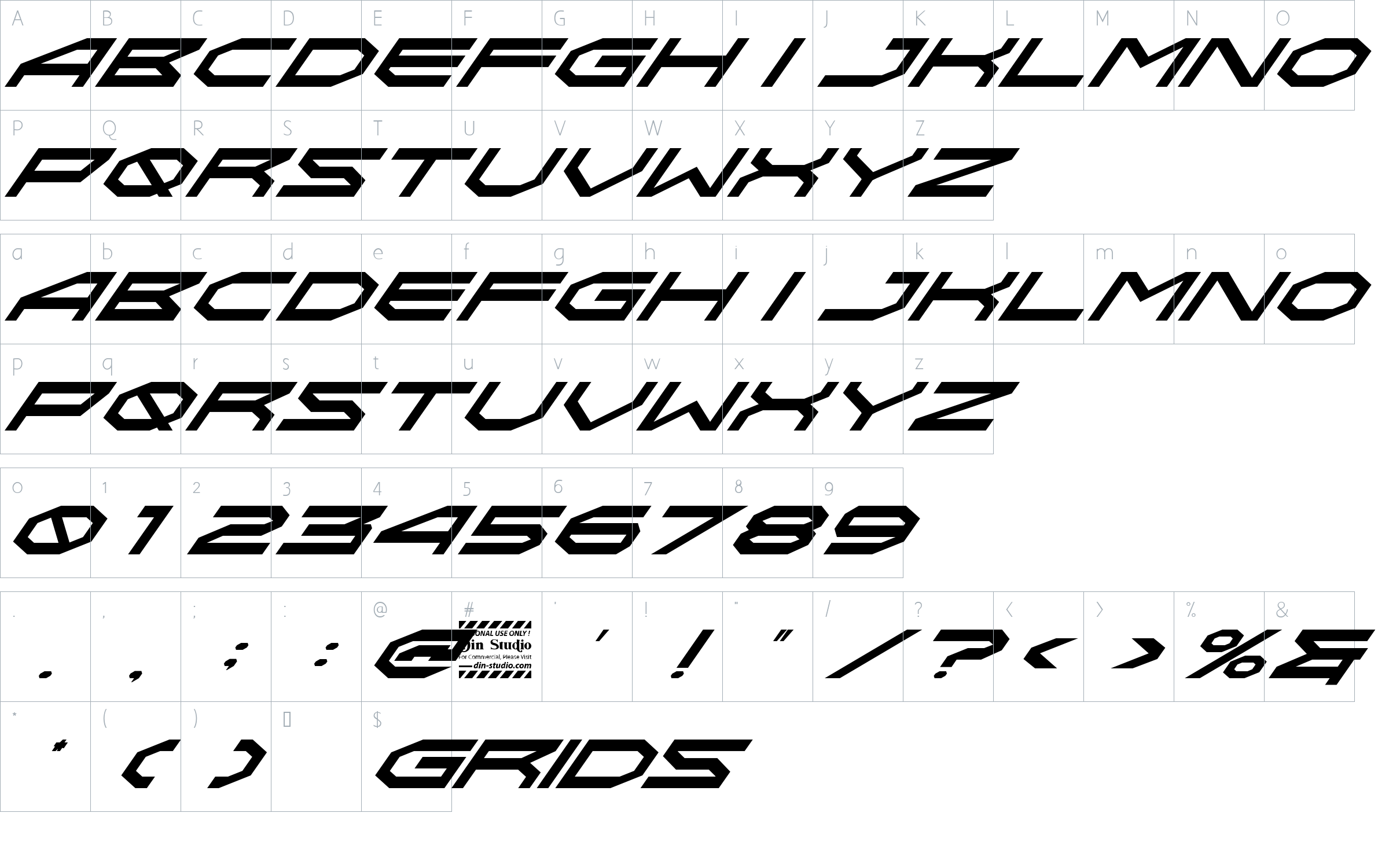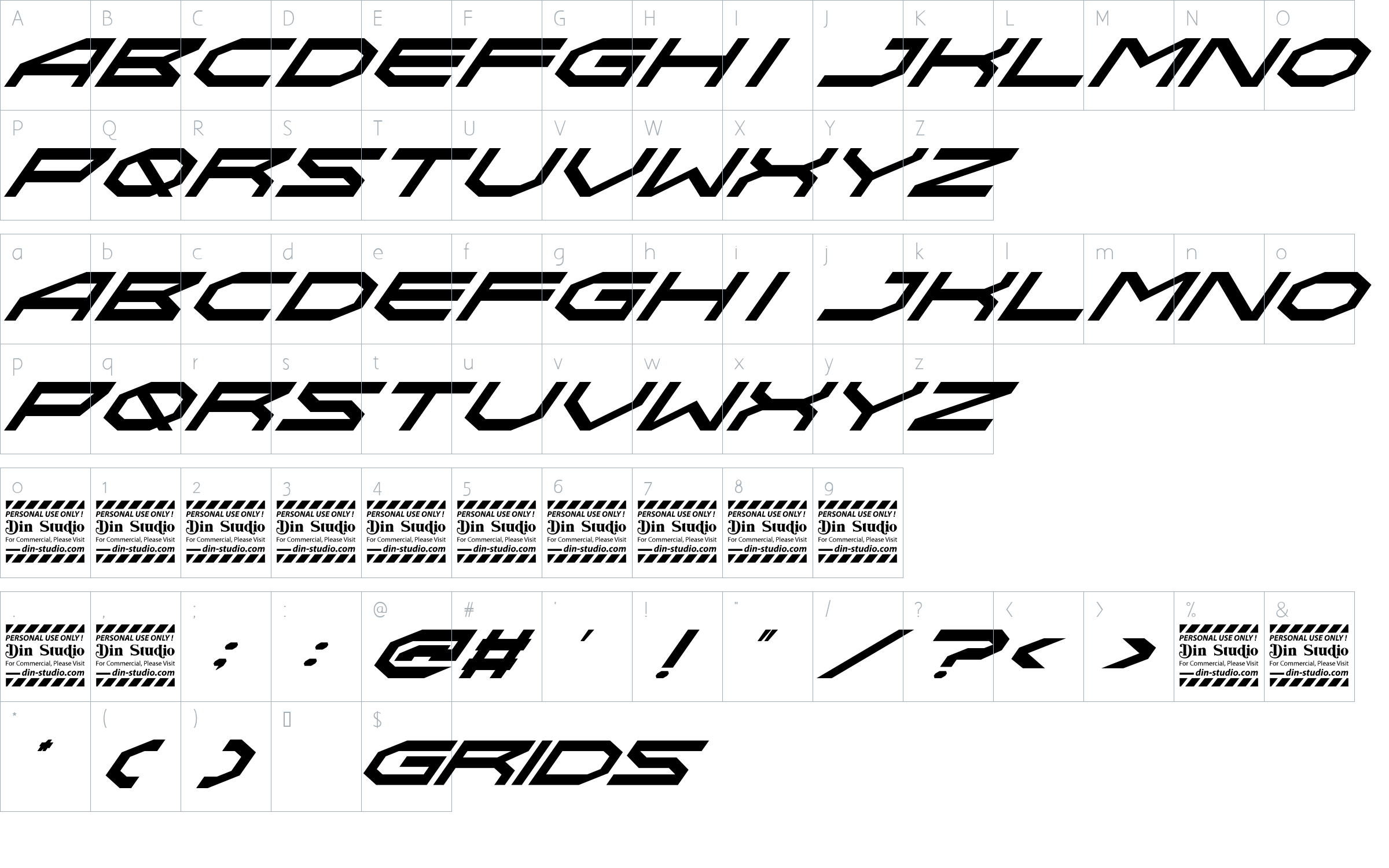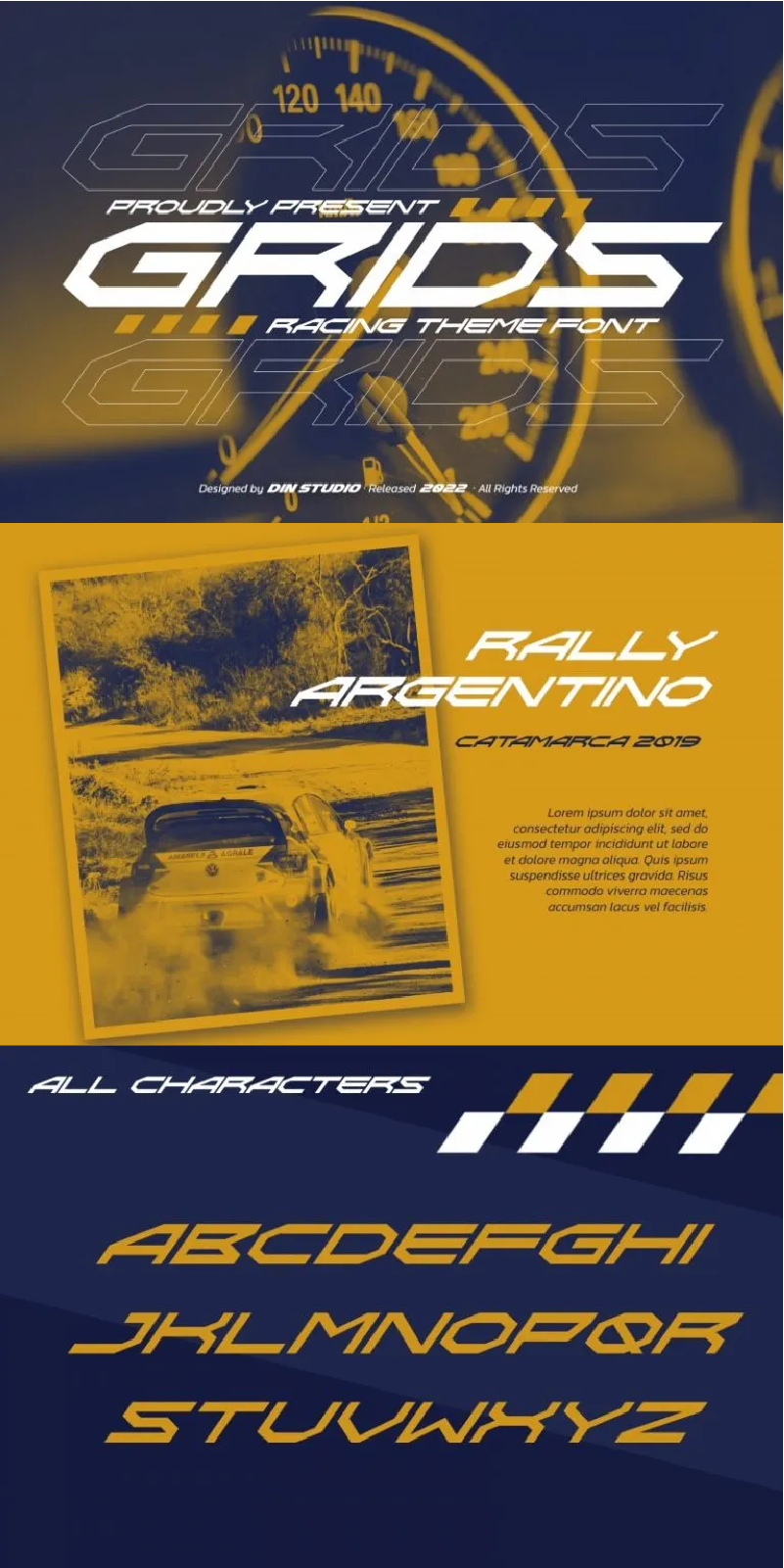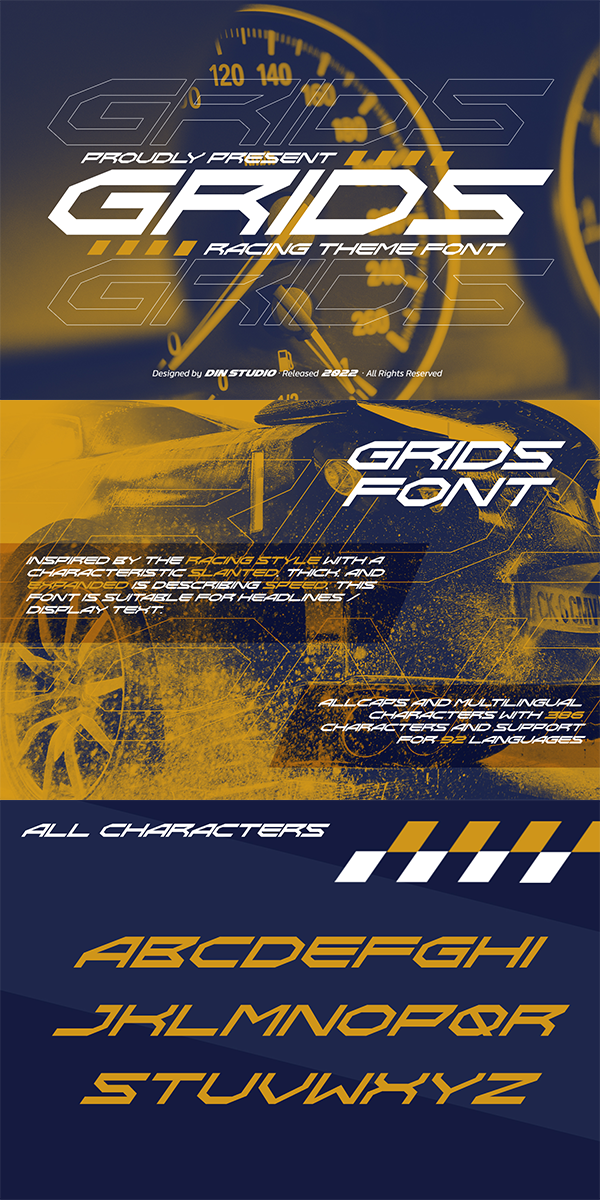
Grids Font
About Grids
Grids is a display font designed in a racing theme showing a firm display and a sharp angle in each letter to give a unique attractive impression. Additionally, it provides interesting features to help designers maximize their design products.
Use Grids for any design projects such as posters, banners, logos, book covers, headings, printed products, merchandise, social media, and so on. Find out more ways to use this font by taking a look at the font preview.